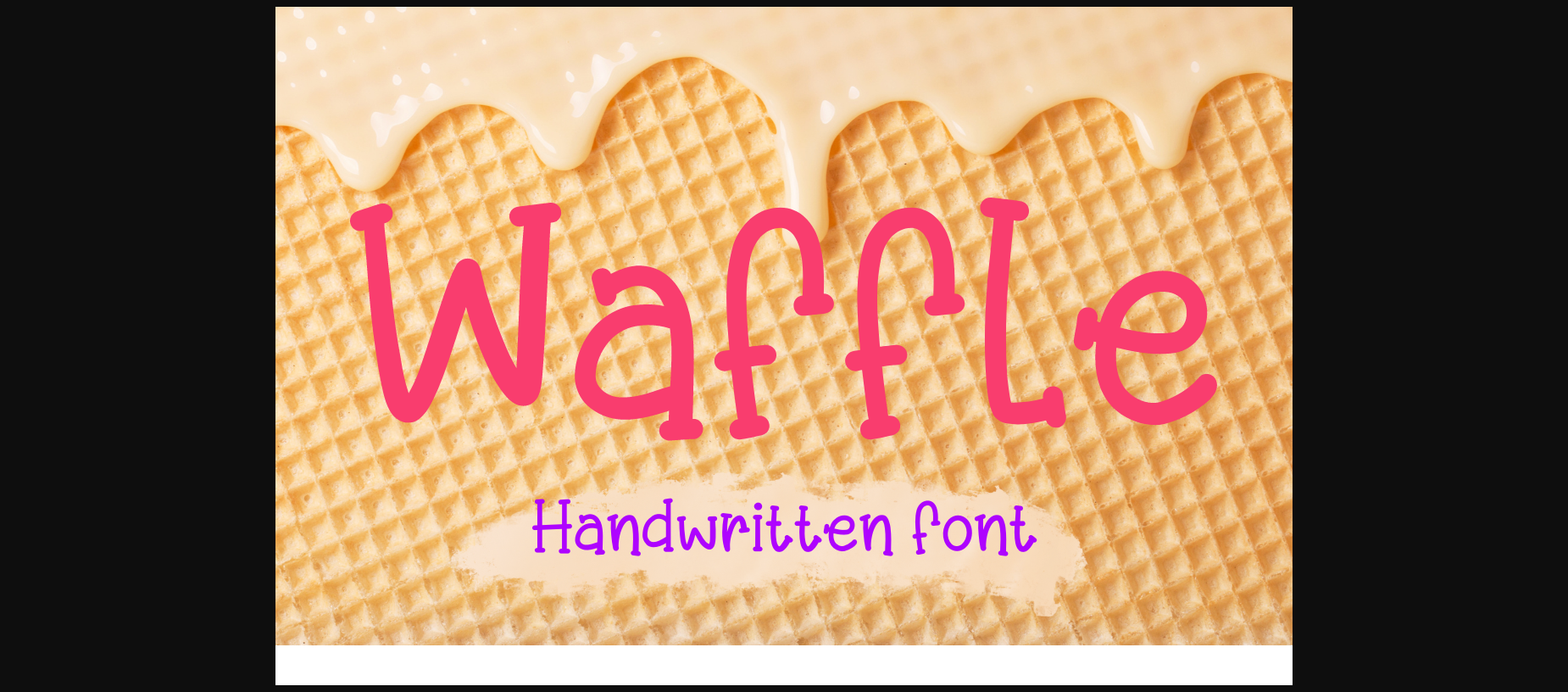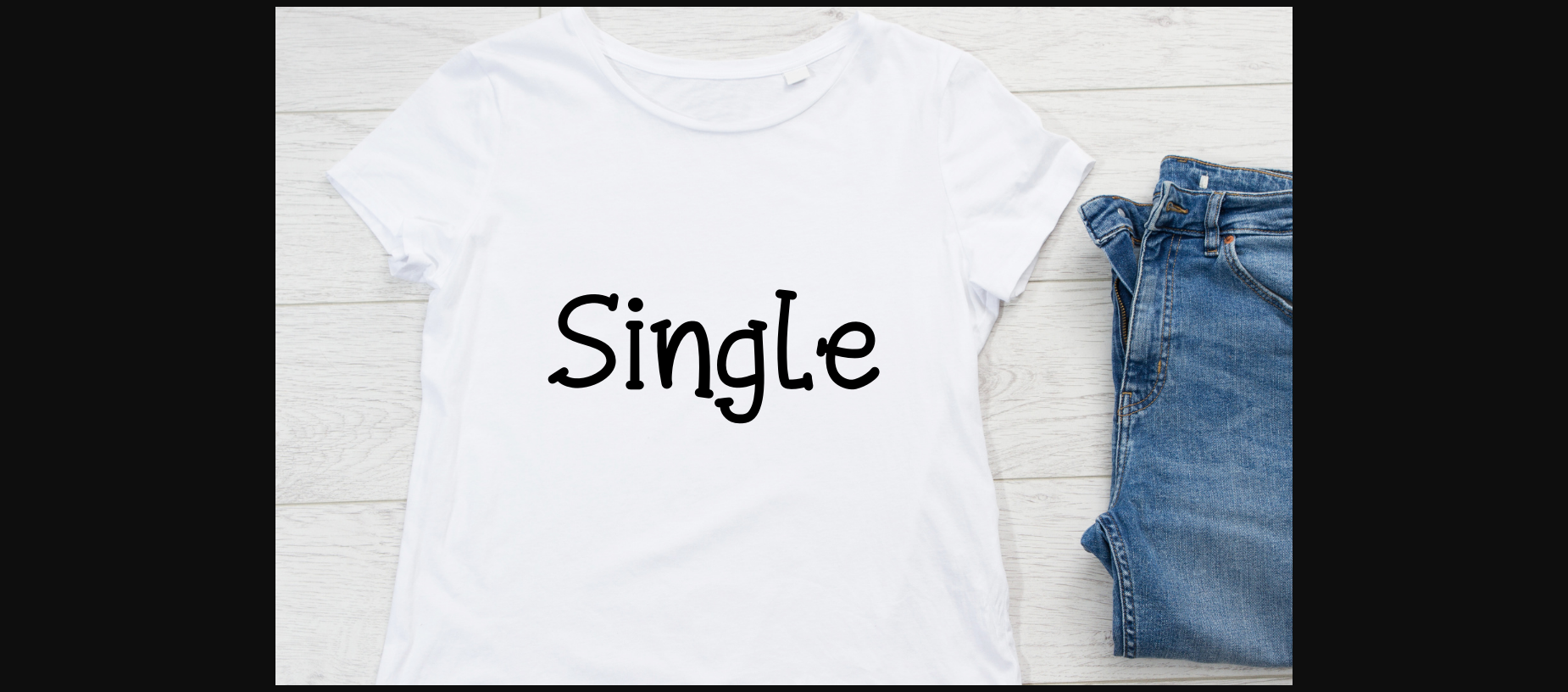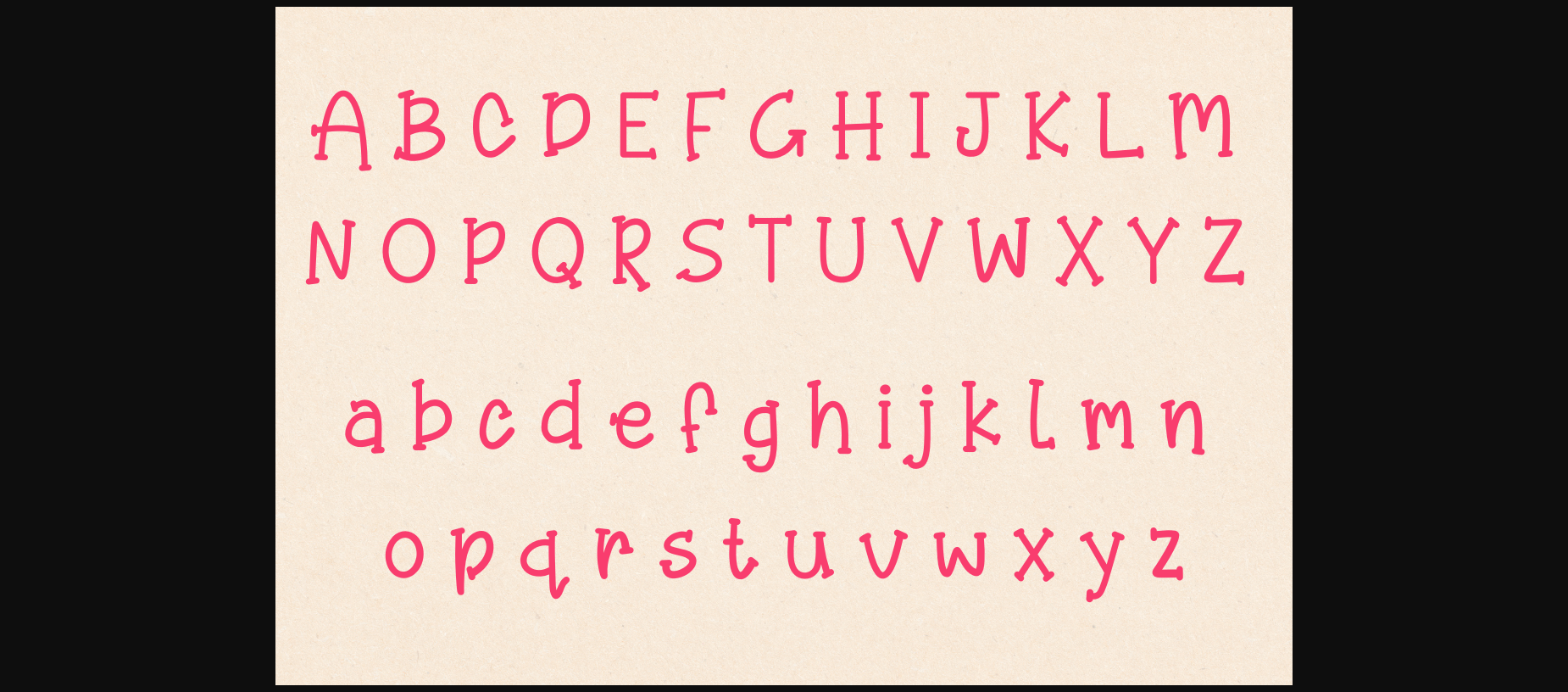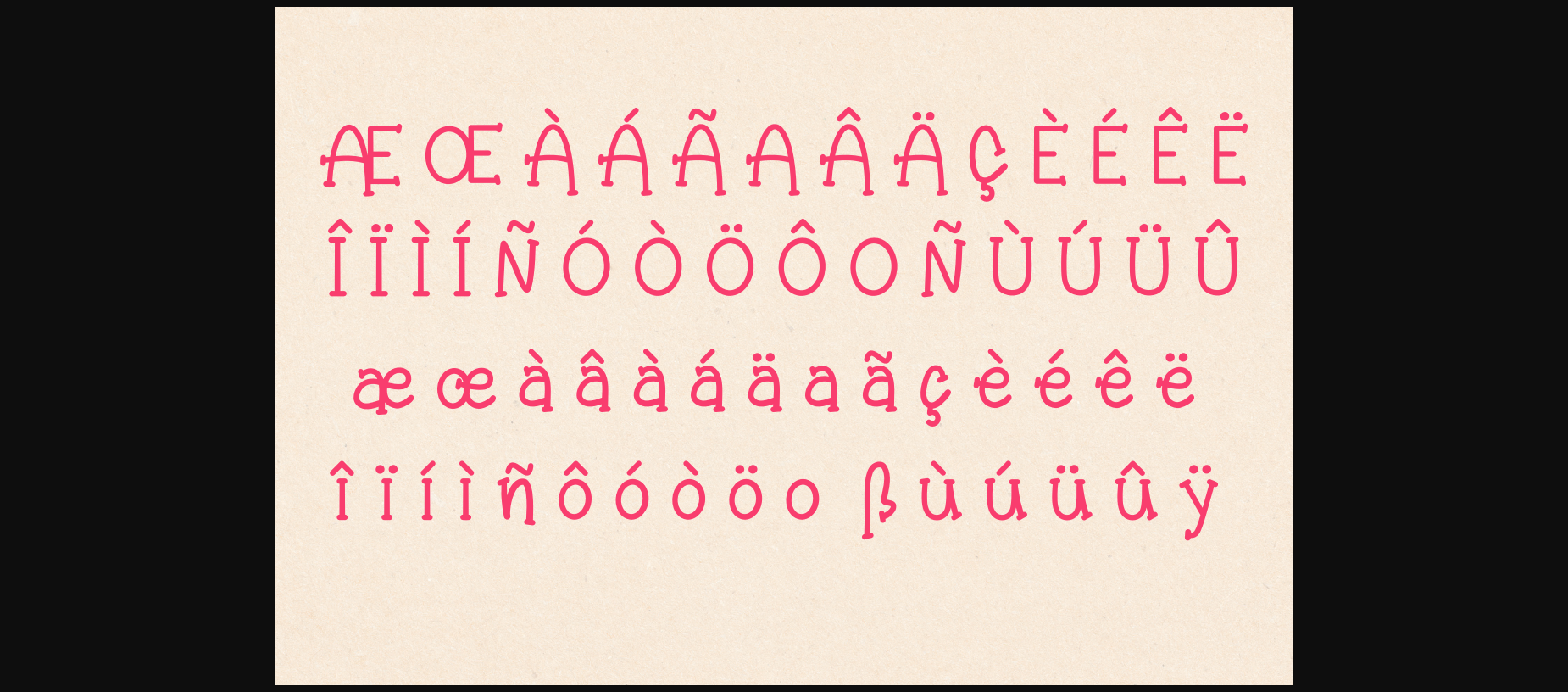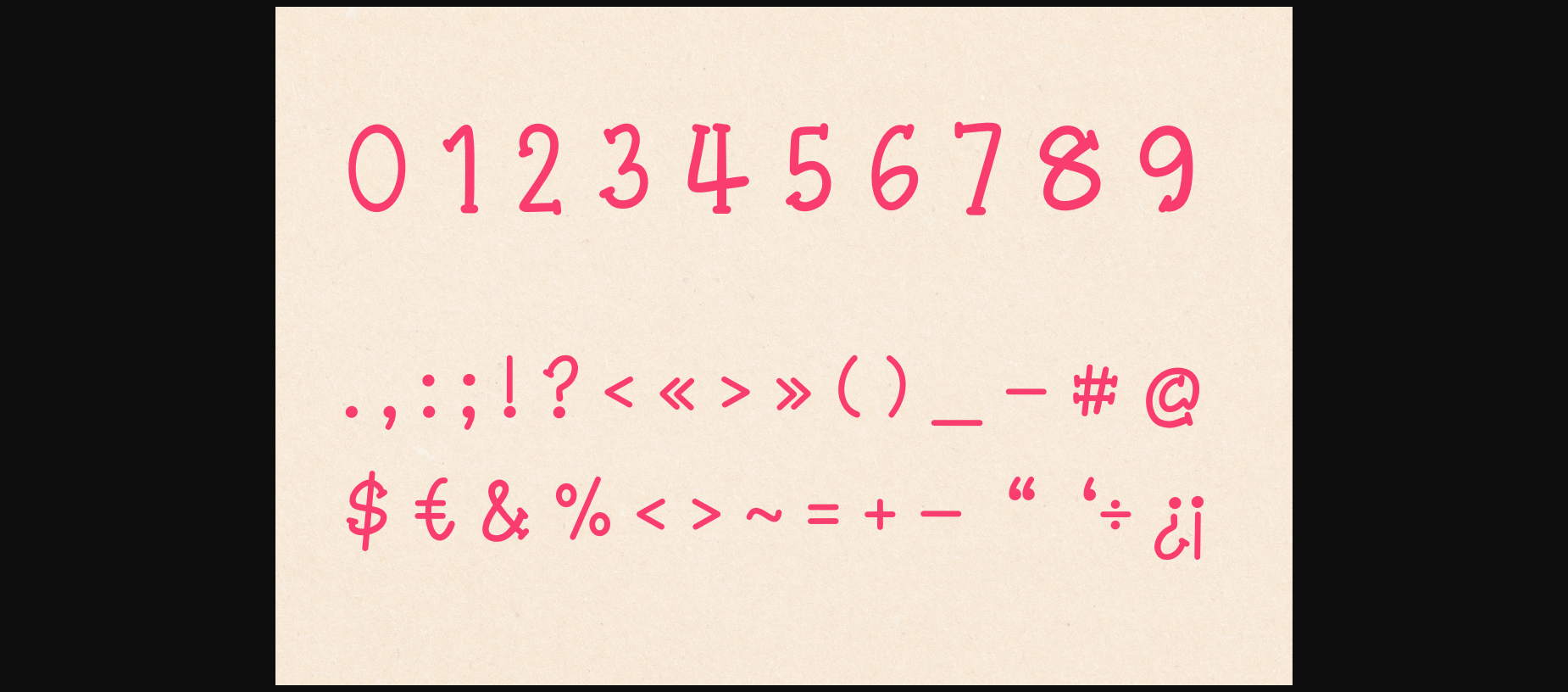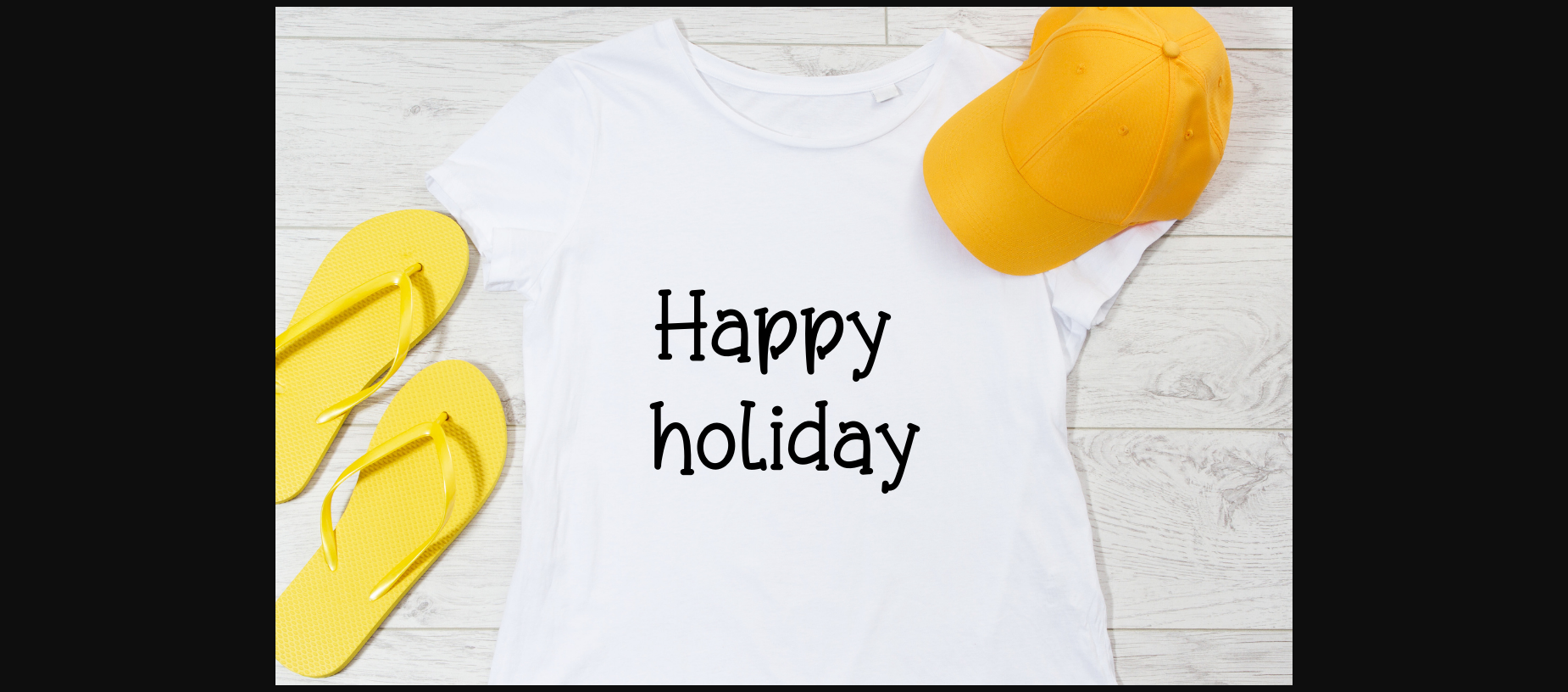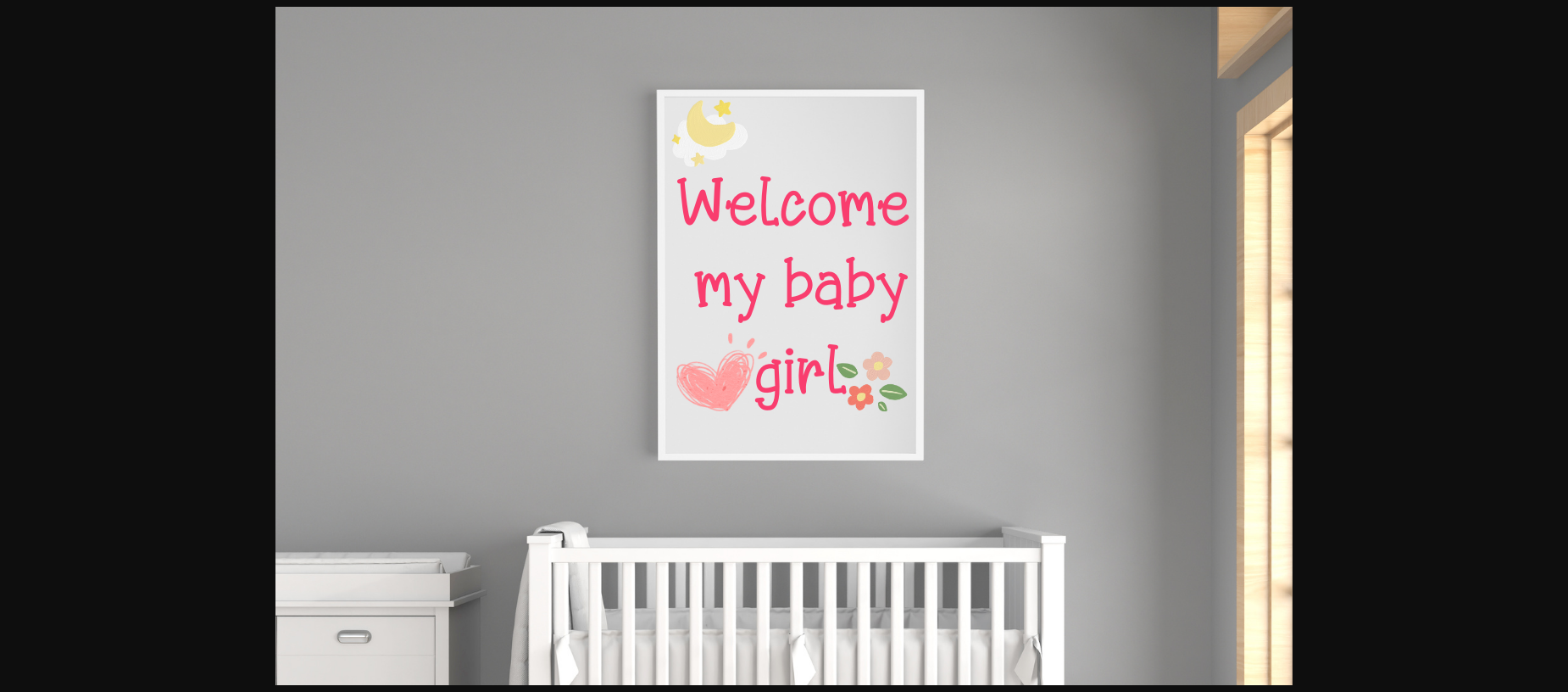
Waffle Font
About Waffle Font
Waffle is a playful handwritten sans serif font. Fall in love with its incredibly distinct and timeless style and use it to create spectacular designs, It would be awesome to your fun projects, Add this lovely font to your creations and take your designs to the next level.